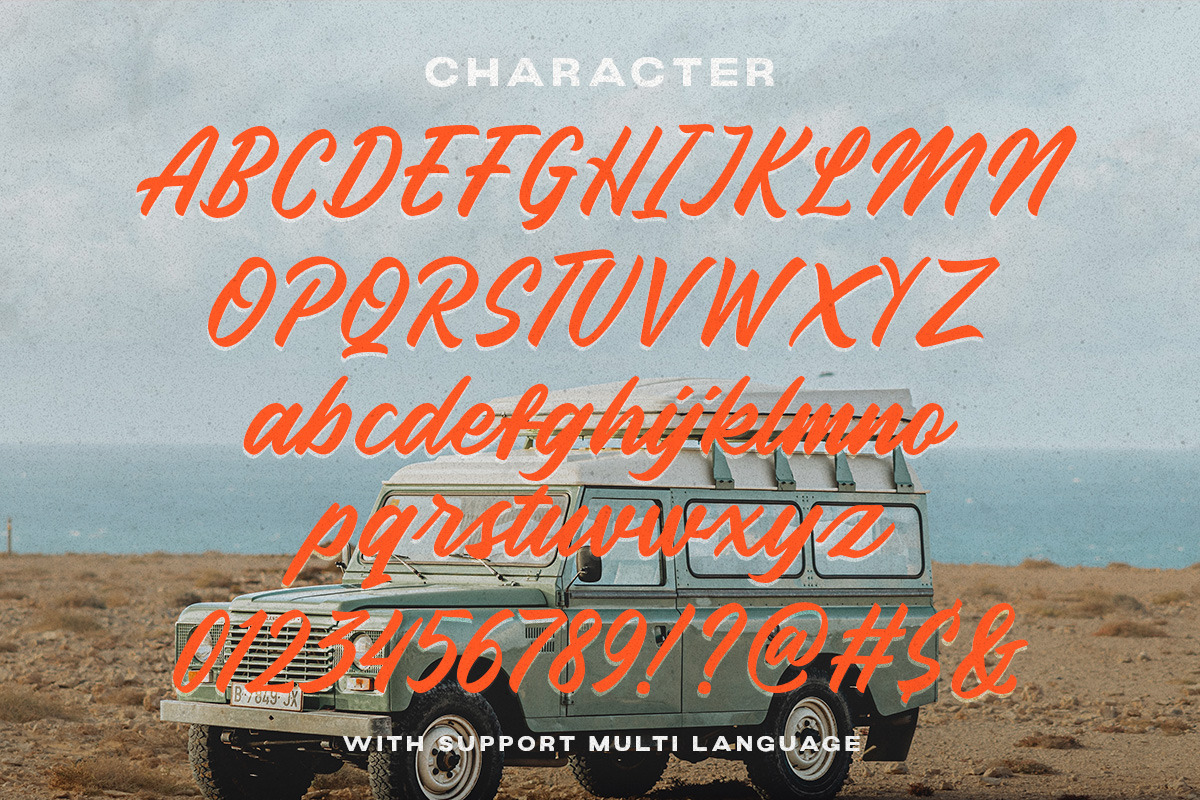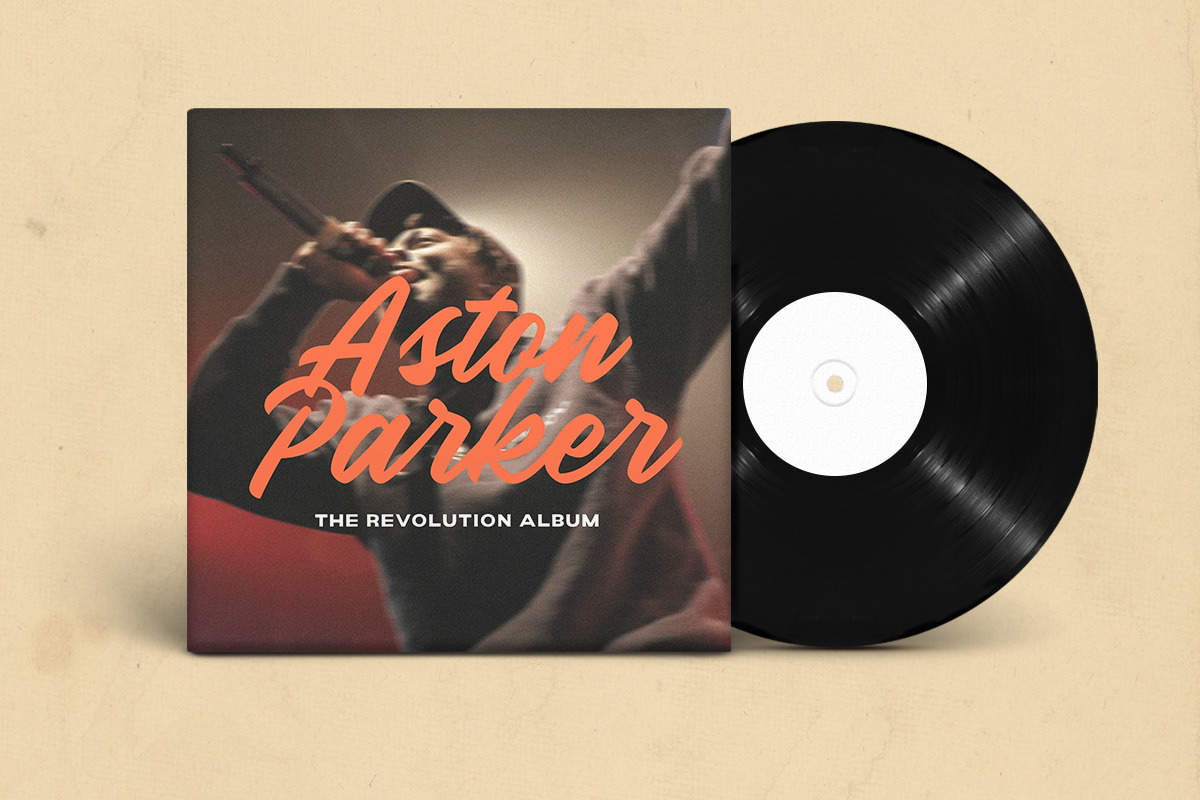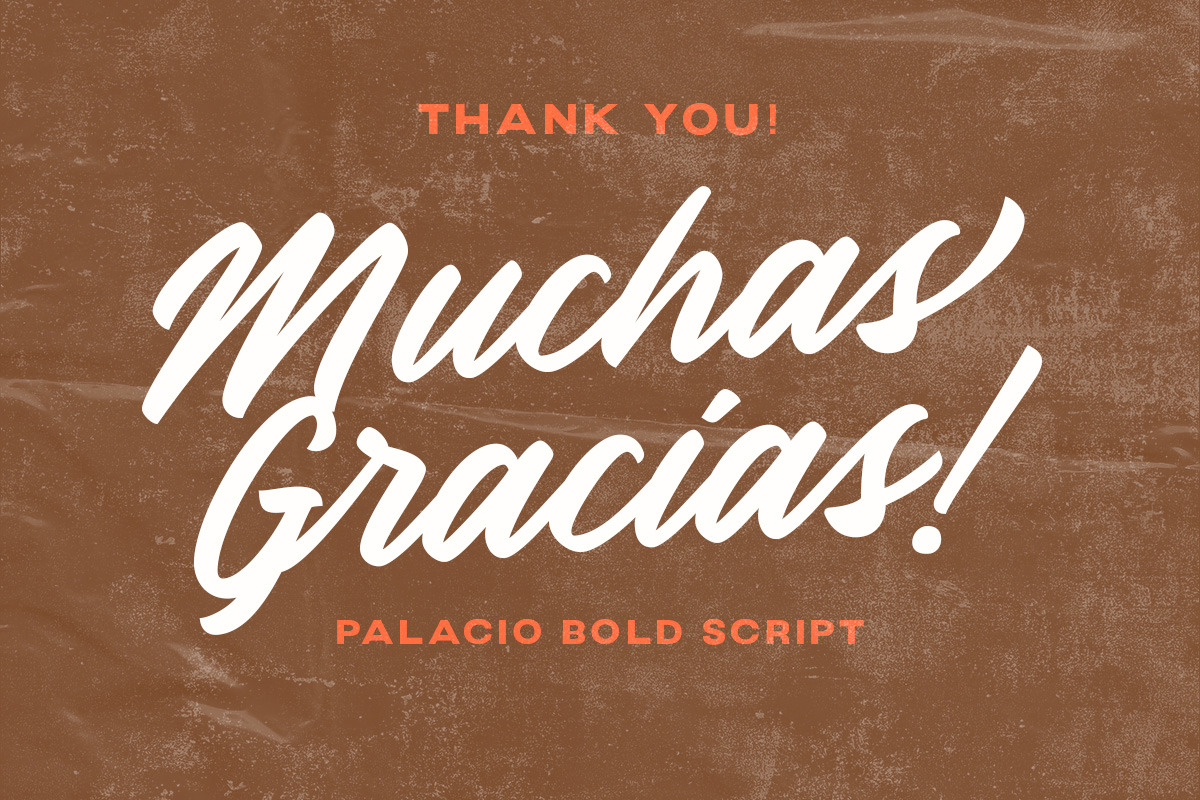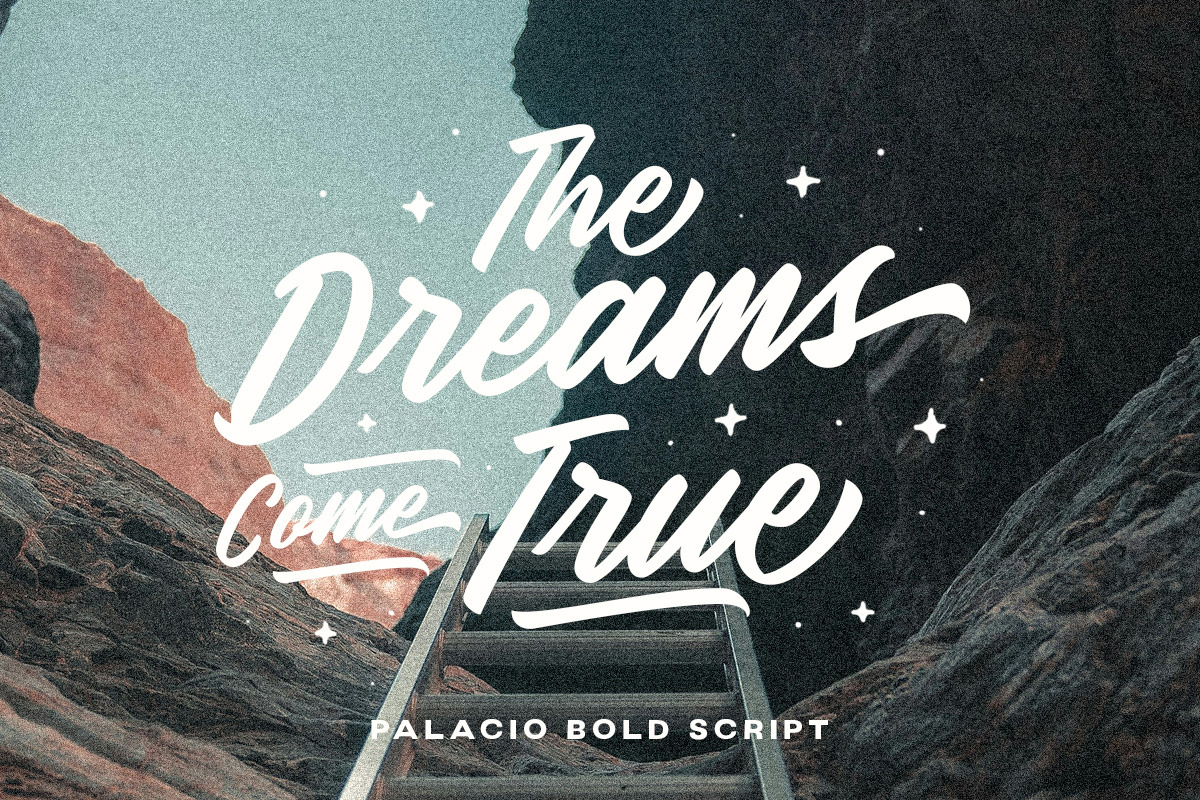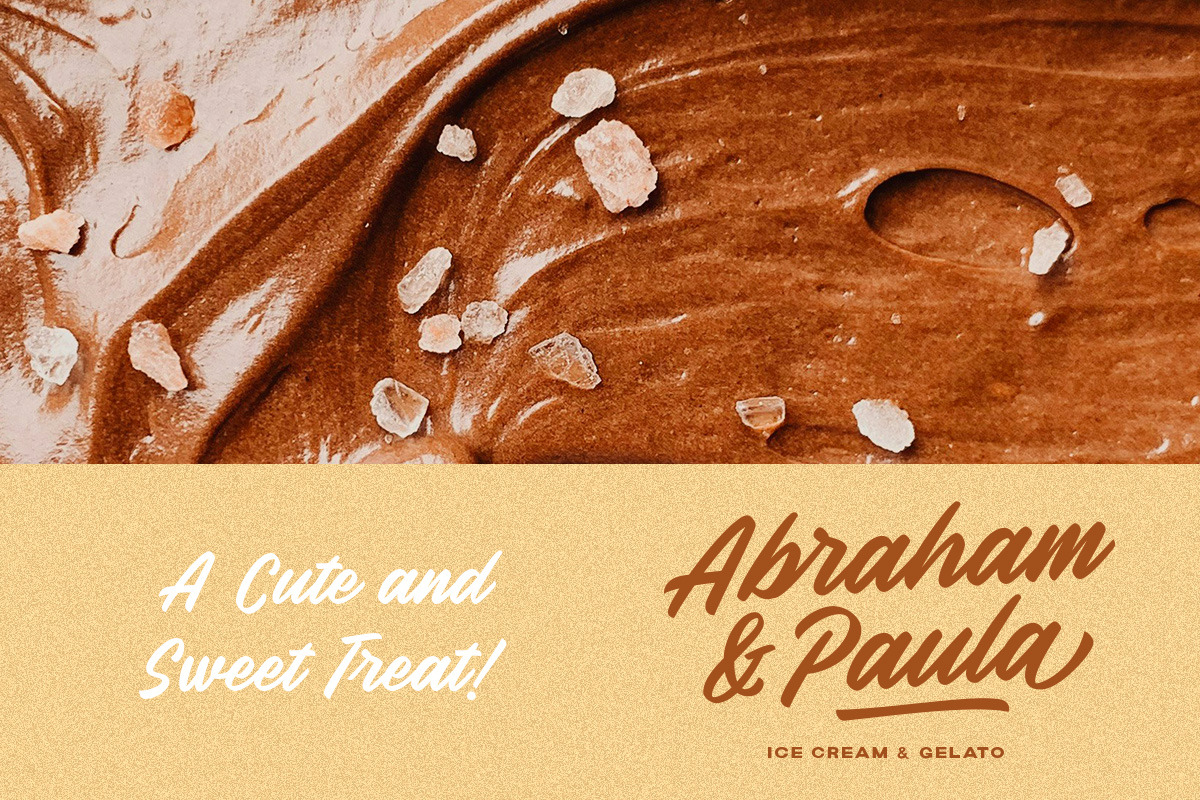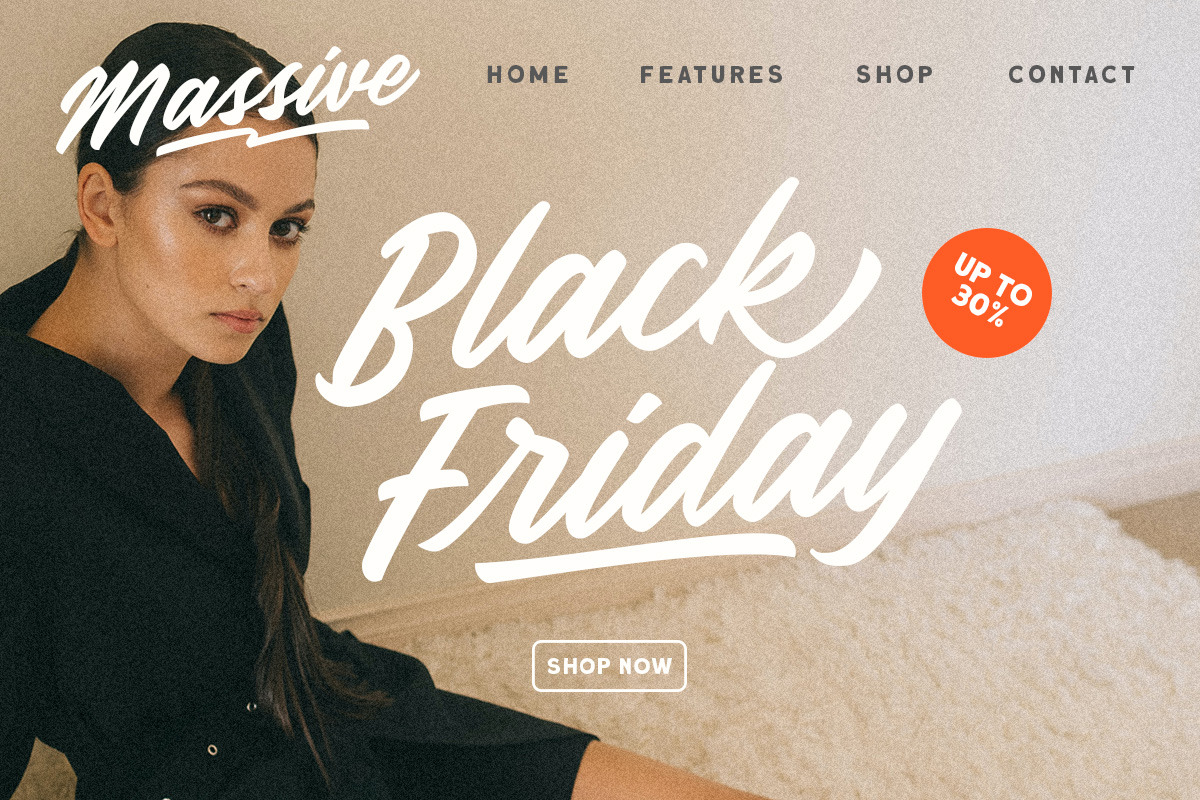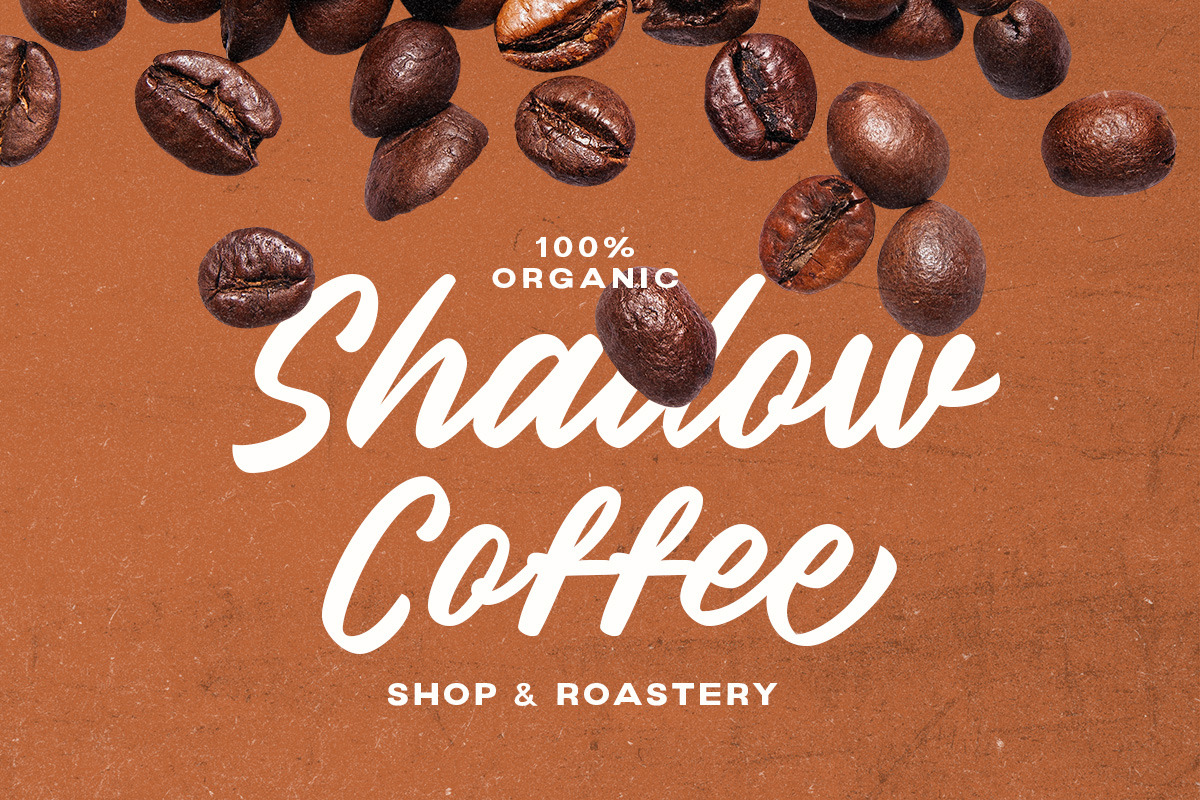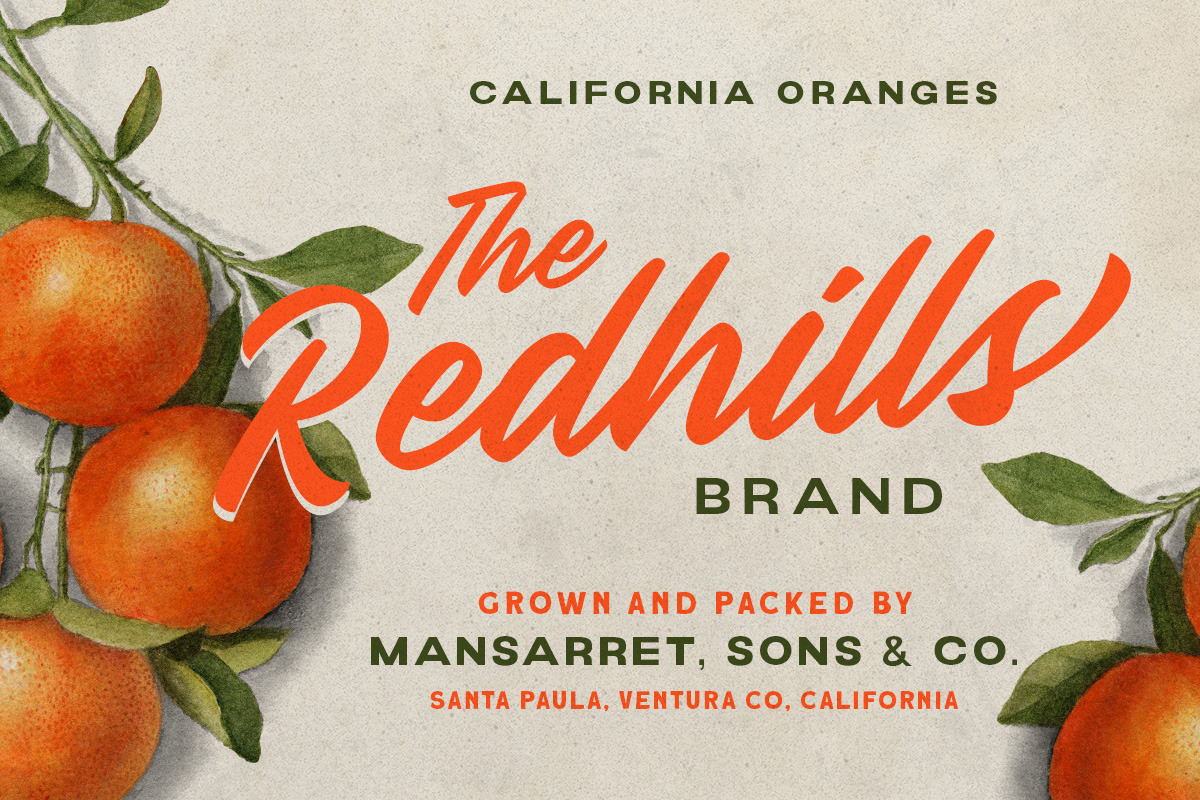
Palacio - Bold Script
Introducing, Palacio - a standout bold script with a touch of fresh looks. This type of font perfectly made to be applied especially in logo, headline, signage and the other various formal forms such as invitations, labels, logos, magazines, books, greeting / wedding cards, packaging, fashion, make up, stationery, novels, labels or any type of advertising purpose.